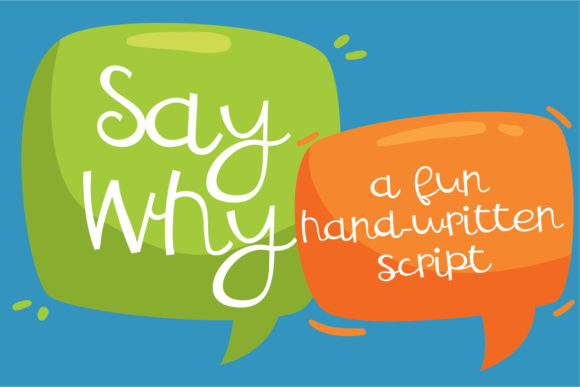
Introducing ZP Say Why Font: Your Gateway to Creative Expression and Visual Delight. Delve into the world of beautiful cursive writing with our captivating script font, ZP Say Why. Designed to evoke emotions and add a personal touch to your creative endeavors, this font is an artist's dream and a delight for anyone seeking a unique and enchanting font.
ZP Say Why possesses the charm of handwritten notes, inviting your audience into a heartfelt and connective experience. Its clean lines and quirky flair make it the ideal choice for crafting captivating logos, forging unforgettable branding elements, engaging social media content, and injecting personality into your DIY projects.
Step into the realm of artistic freedom as you let the ZP Say Why Font dance across your designs. Its graceful curves and natural flow lend an air of elegance and authenticity to your creations. With this font, your words take on an ethereal essence, captivating your audience and leaving a lasting impression.
With ZP Say Why, you're not just downloading a font; you're embracing a world of creative possibilities. Unleash your imagination and explore the endless ways this font can transform your designs into works of art. From heartwarming invitations to eye-catching posters, from enchanting logos to heartfelt social media posts, ZP Say Why becomes the brush that paints your creative vision into reality.
So embark on this journey of artistic exploration with ZP Say Why Font. Embrace the beauty of cursive writing and watch as your designs blossom into captivating creations. Let your creativity flow, your passions ignite, and your audience fall in love with the charm and elegance of this remarkable font. Welcome to the world of ZP Say Why, where your designs will forever sing with the melody of artistic expression.